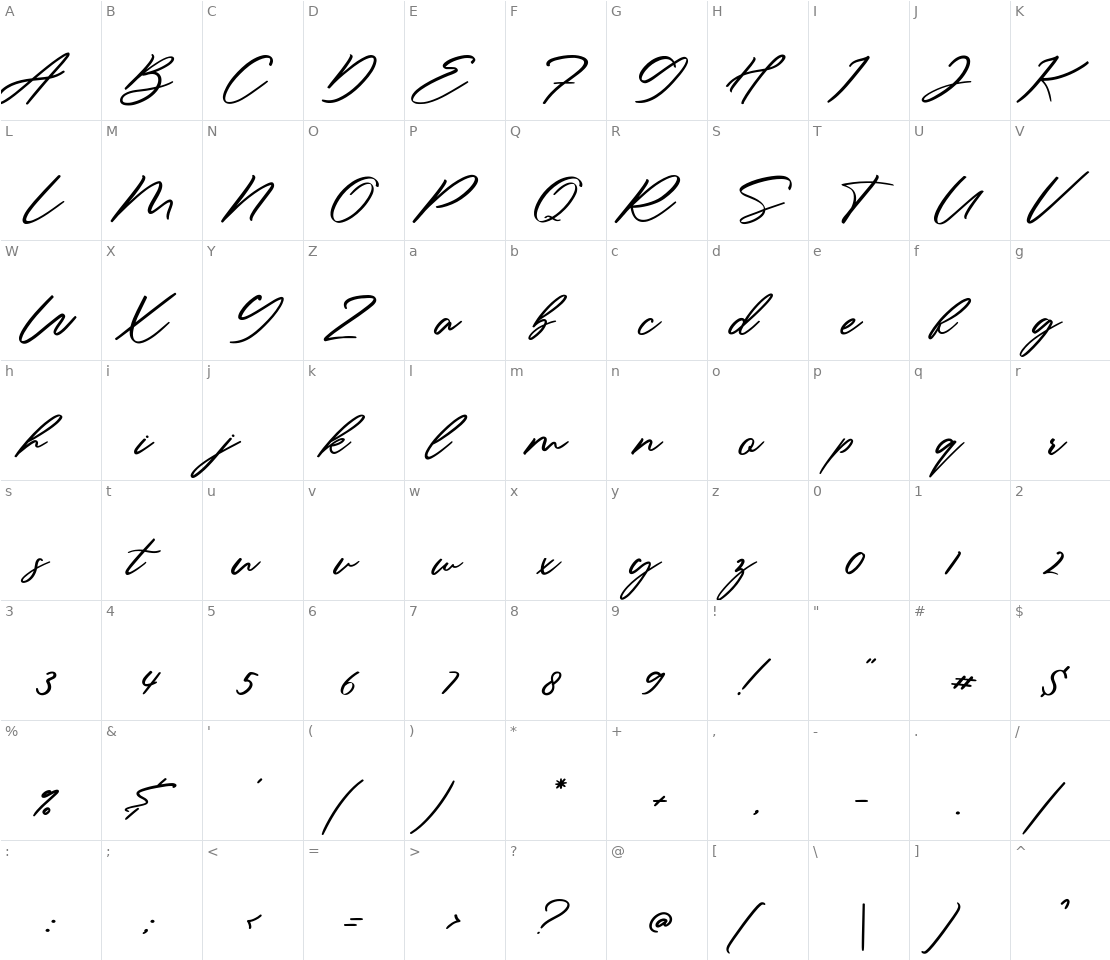
Sieroty
by Pen Culture
Sieroty is a thin, flowing signature script from Pen Culture with the kind of loose cursive that feels like someone signing their name with real confidence. The strokes stay elegant but never stiff, balancing personal warmth with a stylish edge. It fits naturally into branding, invitations, logos, and anywhere a handwritten touch needs to feel polished rather than precious.